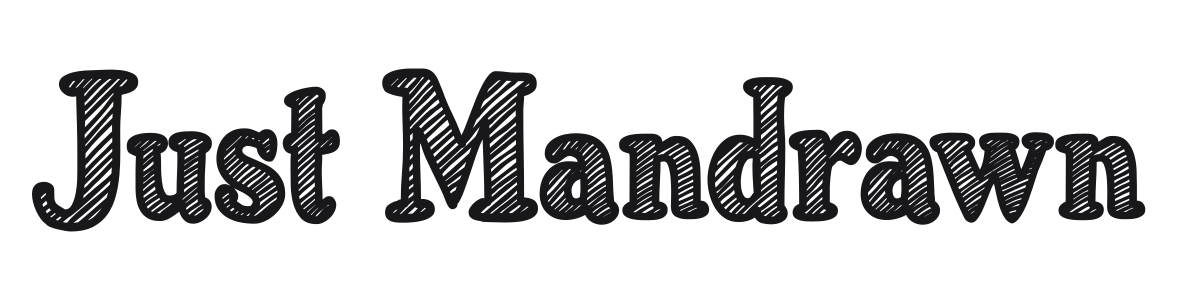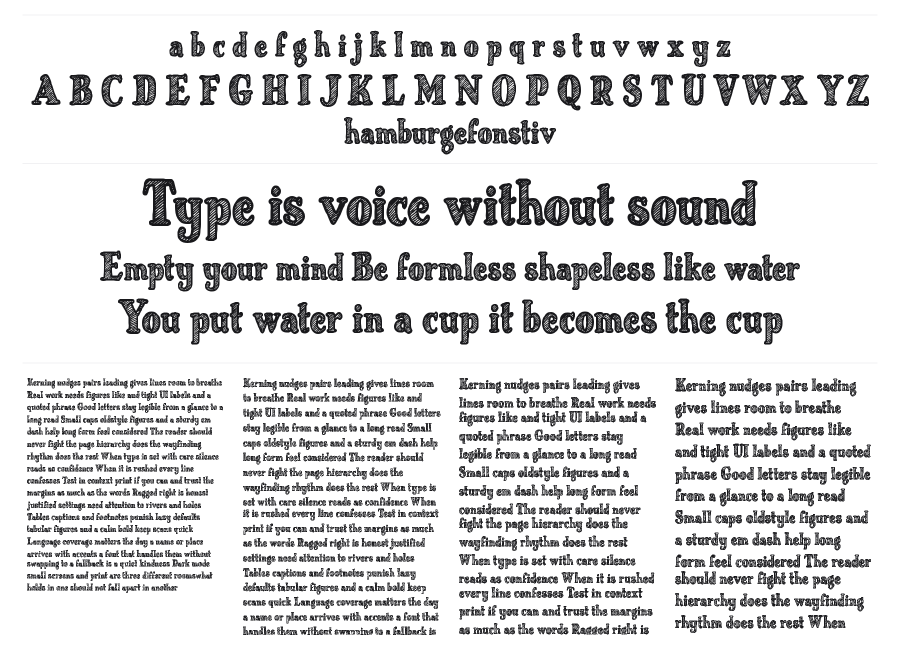
Just Mandrawn
Just Mandrawn is a bold hand-drawn serif with a distinctive cross-hatching texture that makes every letter look like it was sketched with ink and a steady hand. The underlying structure borrows from classical bold serifs, but the rough hatched fill transforms it into something warm and entirely handcrafted. It brings personality to packaging, posters, and logotypes where a polished font would feel too slick.